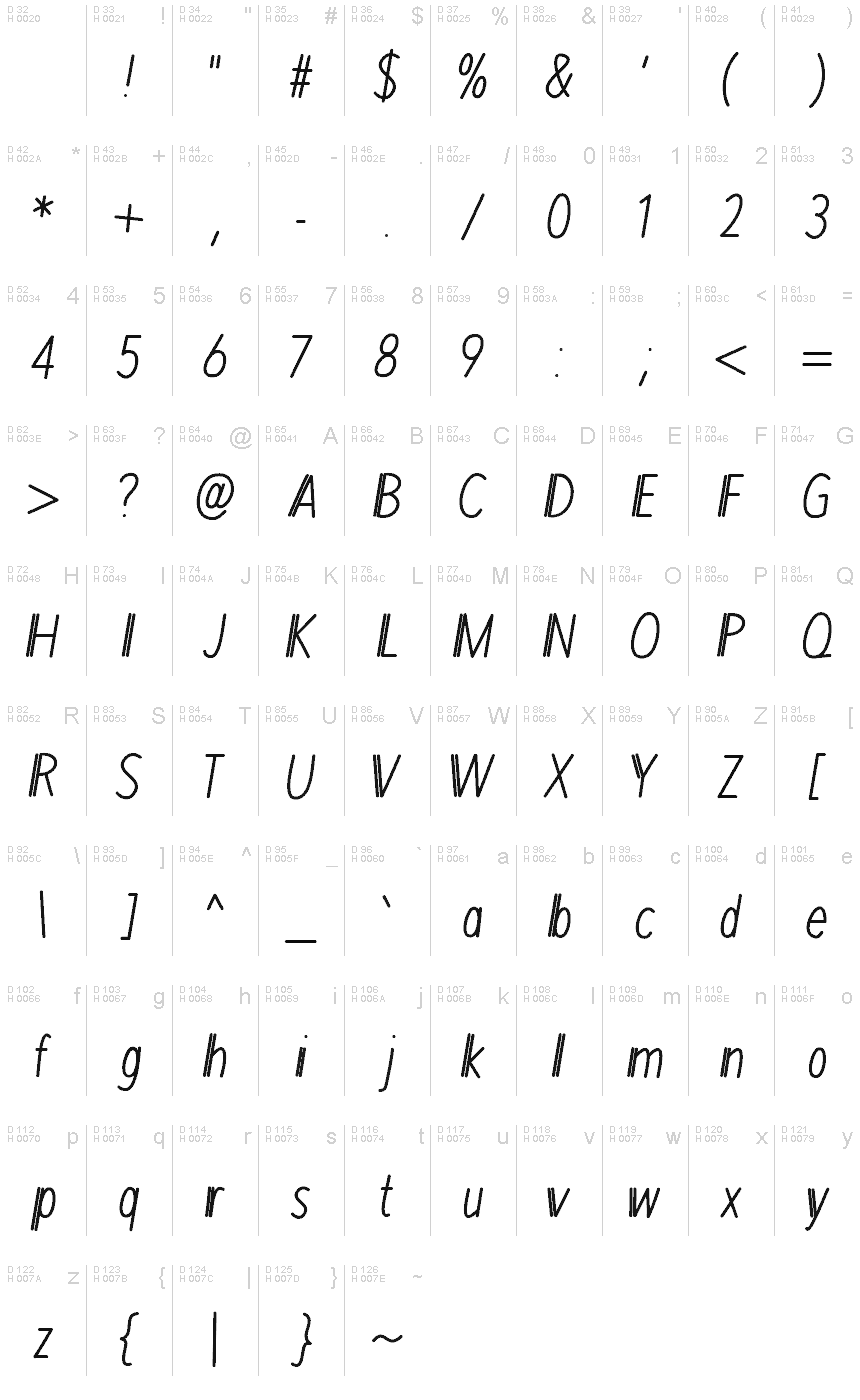
MixDuple
Mix Duple is a captivating display font that exudes a perfect balance of elegance and playfulness. Its striking letterforms feature a delicate interplay of thin and thick strokes, creating a mesmerizing visual rhythm. The unique duple design, where each character is split into two distinct parts, lends an intriguing and dynamic quality to the font.
This font's versatility shines through, making it an excellent choice for a wide range of design applications, from impactful headlines and eye-catching logos to bold and memorable typographic treatments. Its distinctive style adds a touch of sophistication and a sense of movement to any design, making it a valuable asset for creatives seeking to make a lasting impression.